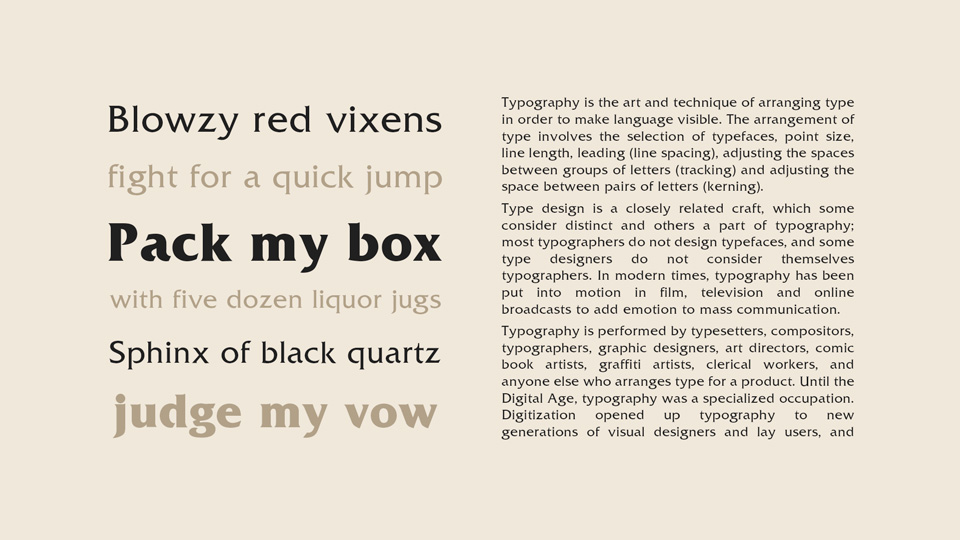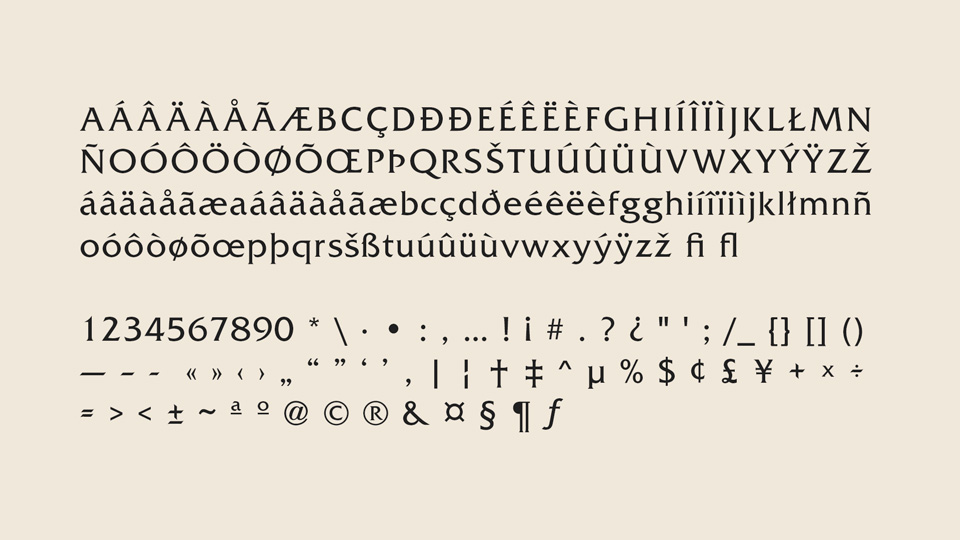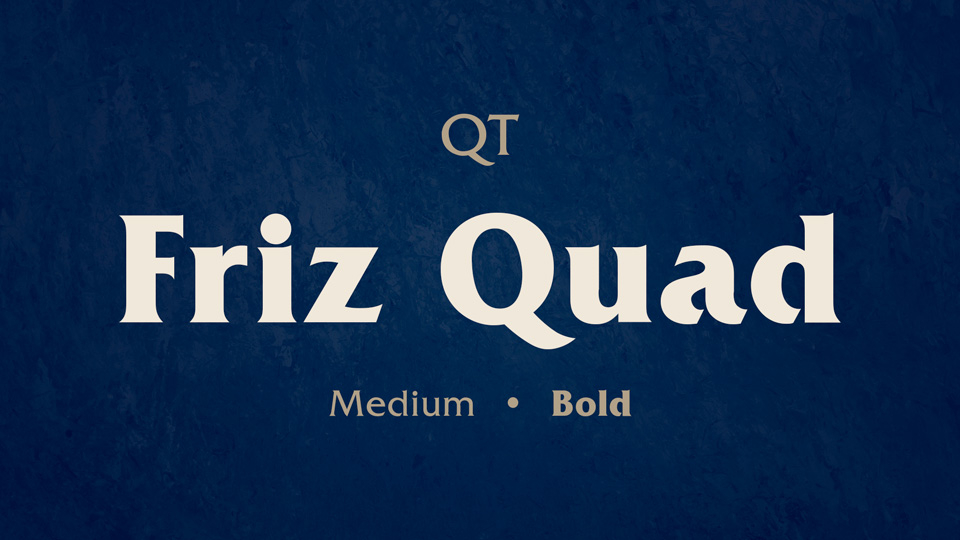
Friz Quadrata Font Vk
Glyphic fonts are called so because they are reminiscent of engraved or chiselled characters in stone or metal, instead of the more popular calligraphic handwriting style. Available for mobile app use. It is always best to pay for a premium font rather than trying to.
Due To Its Realistic Weight And Style, It Is Regularly Utilized As A Display Textual Style, For Short Messages And Headings.
The first weight was created by swiss designer ernst friz and made its first international appearance with the design release of visual graphics corporations. Because of its level of detail and graphic weight, it is often used as a display font, for short texts and. Available for web use (pay once license) purchase the number of pageviews you need to cover your monthly traffic.
As Such Friz Quadrata Has Those.
Glyphic fonts are called so because they are reminiscent of engraved or chiselled characters in stone or metal, instead of the more popular calligraphic handwriting style. If you want to use friz quadrata sb™ then i suggest just paying for it and downloading friz quadrata sb™ here. You can use the friz quadrata to create interesting designs, covers, shop and store name and logos.
Friz quadrata contains 2 styles and family package options. This typeface has a classic and glyphic texture appearance that is perfect for designing purposes. View sample text, character map, user rating and review for friz quadrata bold.